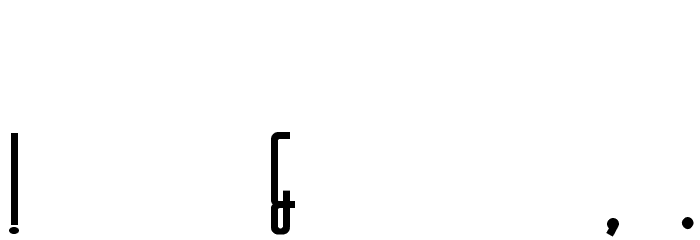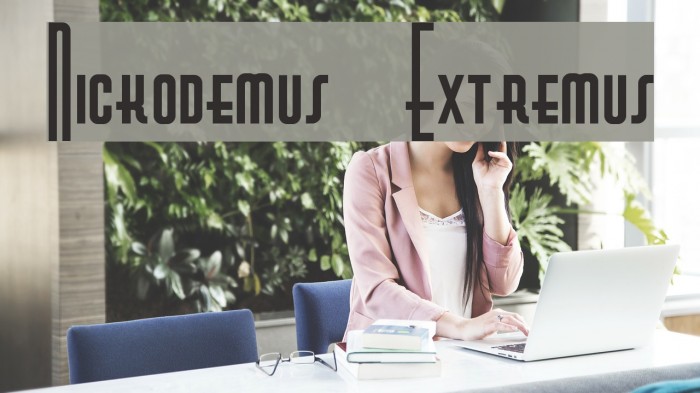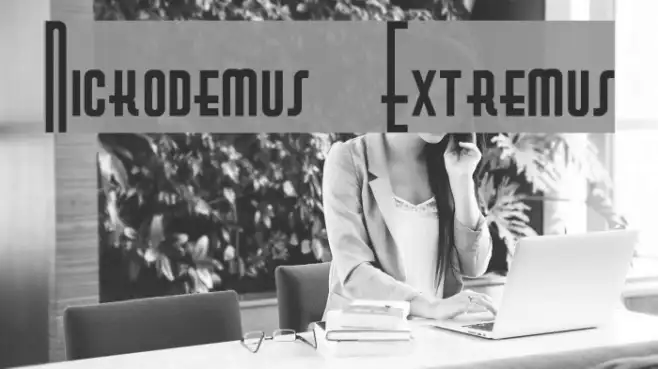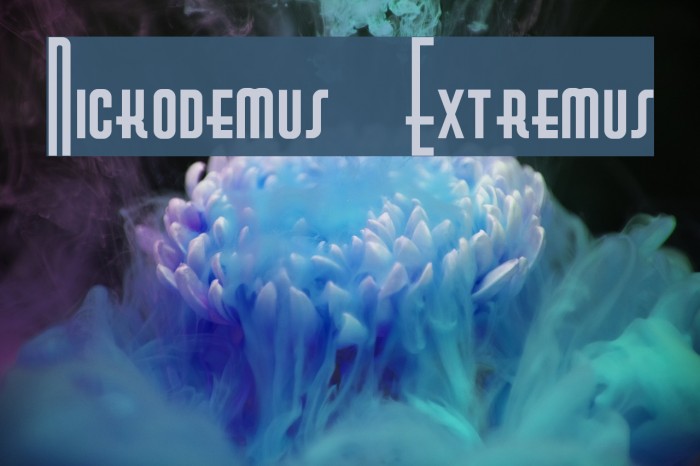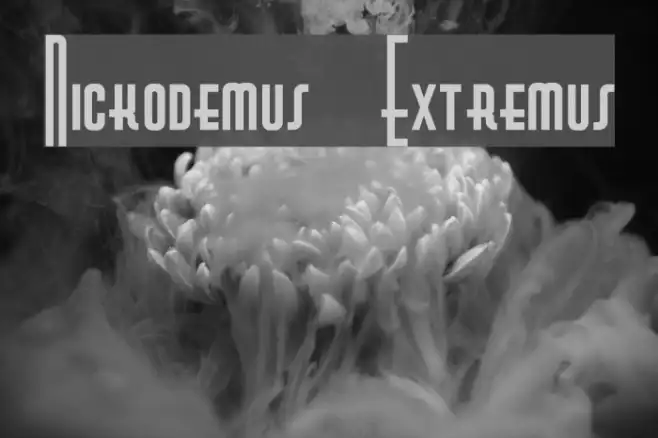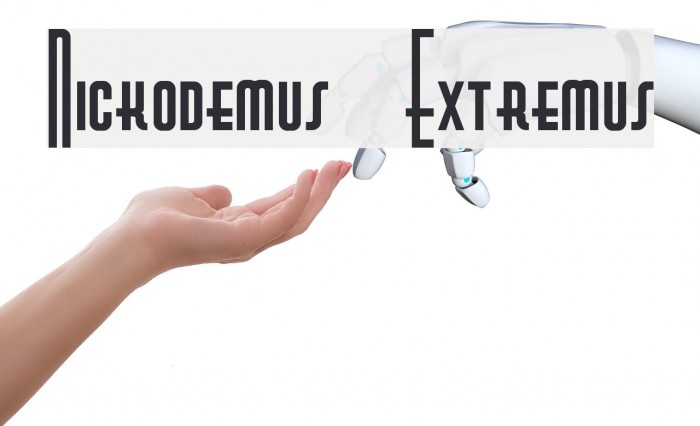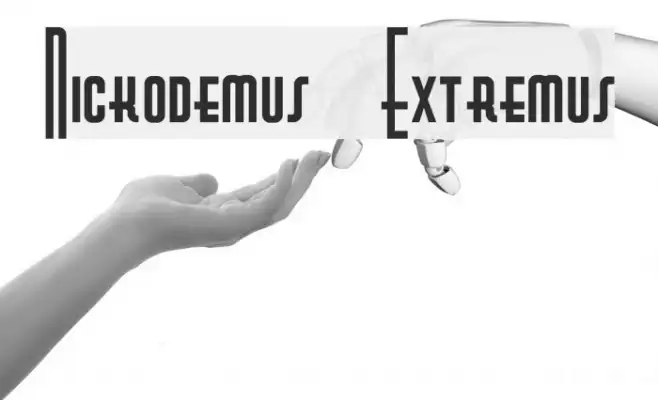
Nickodemus-Extremus Font
Nickodemus-Extremus Description
This font features a bold and striking design with elongated, narrow characters that create a sense of height and elegance. The uppercase letters are particularly tall and slender, giving the font a modern and sophisticated appearance. The lowercase letters maintain this elongated style, ensuring consistency throughout the typeface. The numbers and special characters are designed to match the overall aesthetic, with clean lines and a uniform width. This font's unique style makes it ideal for projects that require a strong visual impact.
| Proposed Projects | Ideal for branding, headlines, posters, and any design requiring a bold statement. |